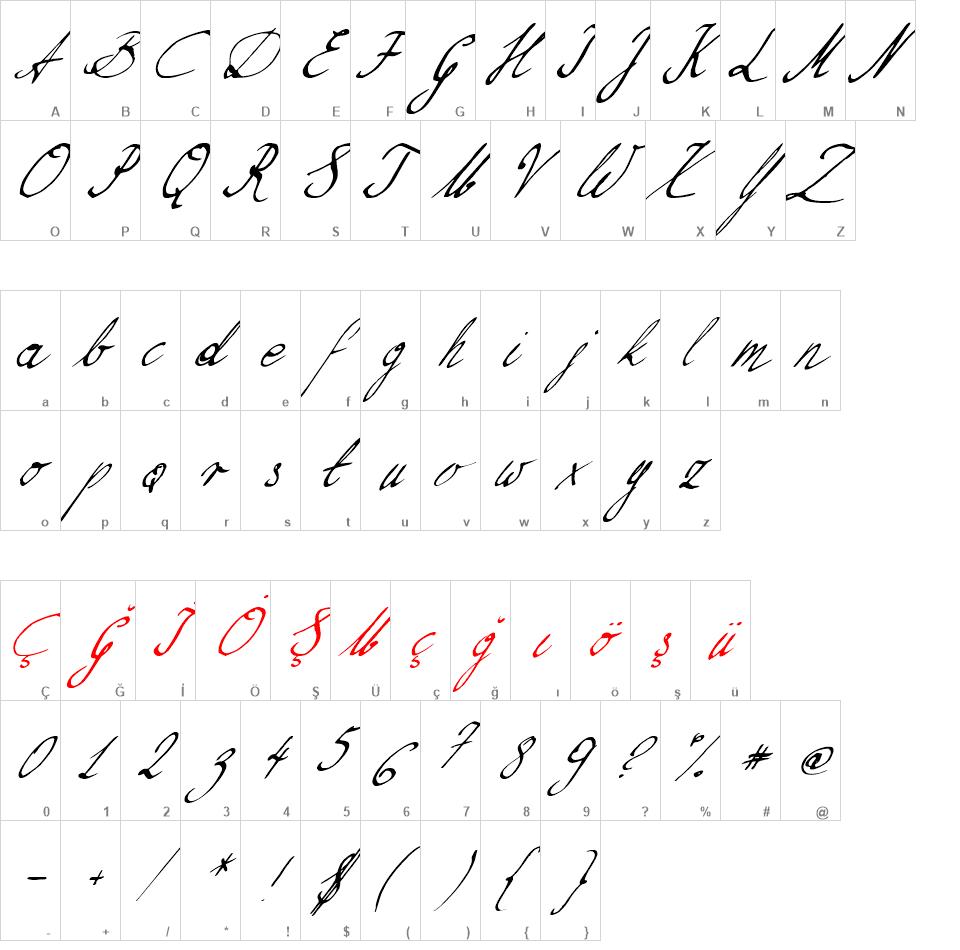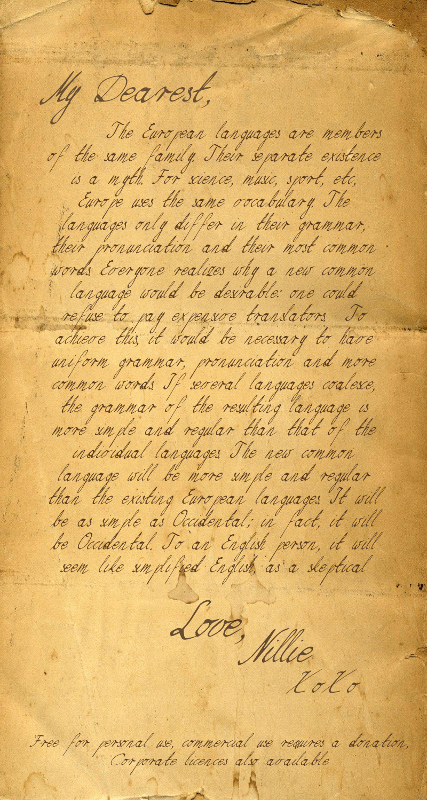
Nillie's Love Letters font
Nillie's Love Letters
This font has been used in “Paranormal Witness” (Season 3 Episode 12). The particuar episode is called “The House On The Lake”. (The lettering that appears on screen in final two minutes of this episode)